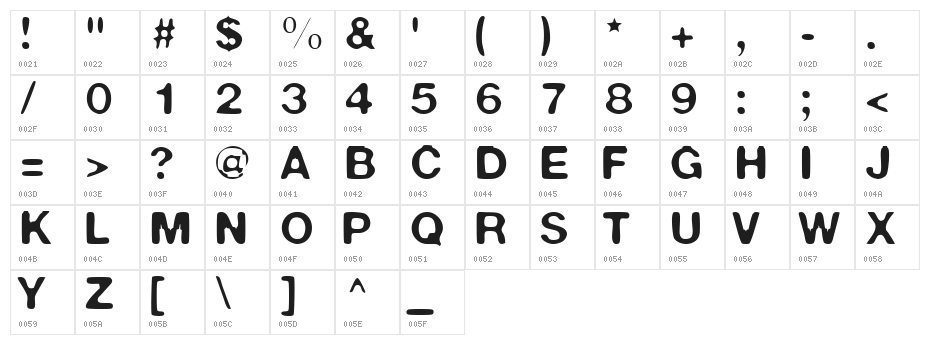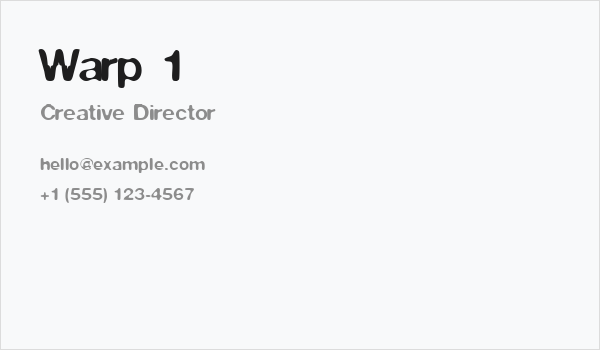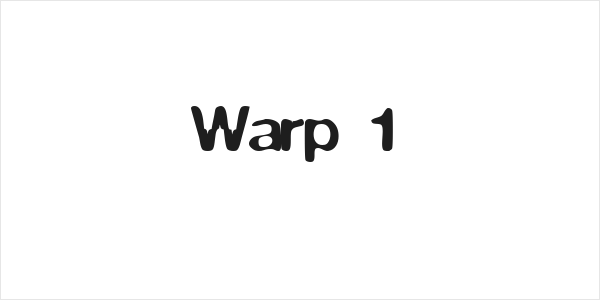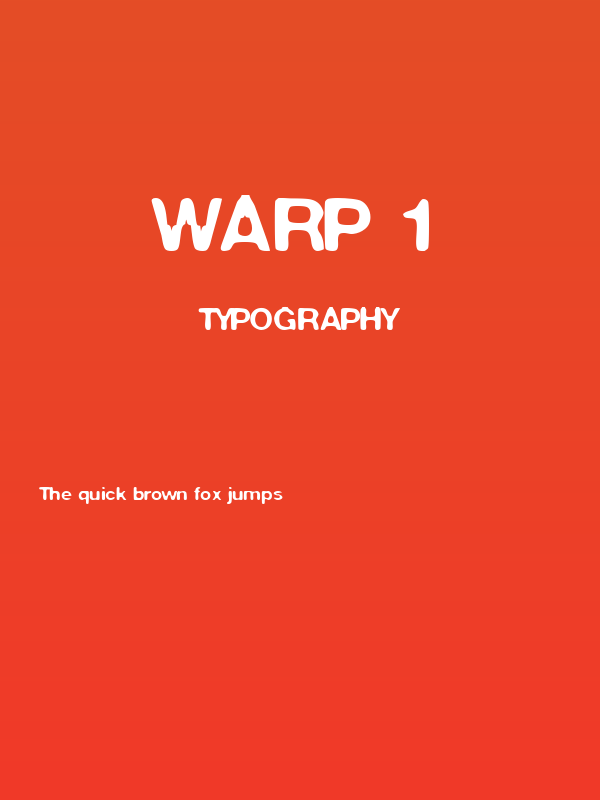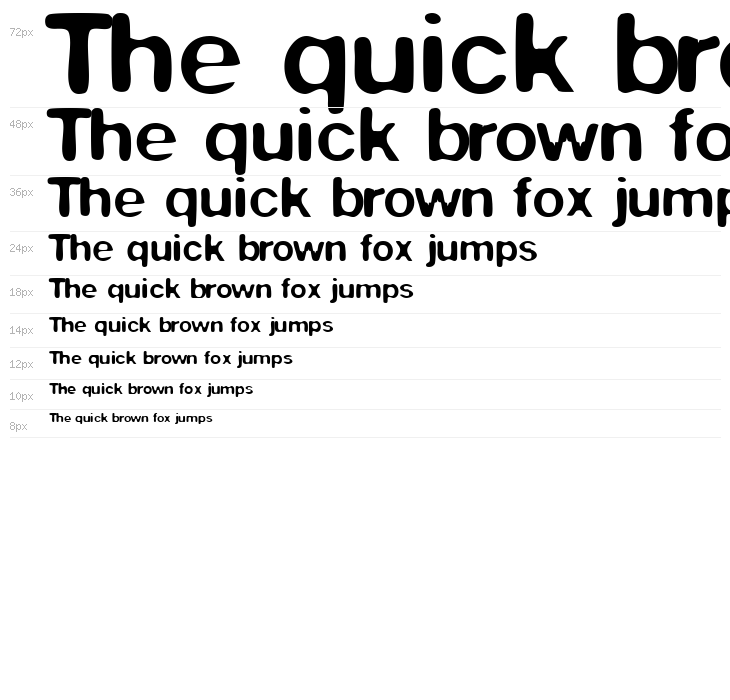
Warp 1 Font
Warp 1 Description
This font features a bold and playful design with rounded edges and a slightly irregular form, giving it a whimsical and approachable appearance. The characters are thick and substantial, making them highly legible and impactful. The rounded forms and smooth curves contribute to a friendly and informal style, suitable for creative and casual applications. The font maintains a consistent weight throughout, ensuring uniformity across all characters. Its unique style is characterized by a sense of movement and energy, making it ideal for projects that require a lively and engaging visual presence.
| Proposed Projects | Ideal for children's books, playful branding, posters, and creative designs. |